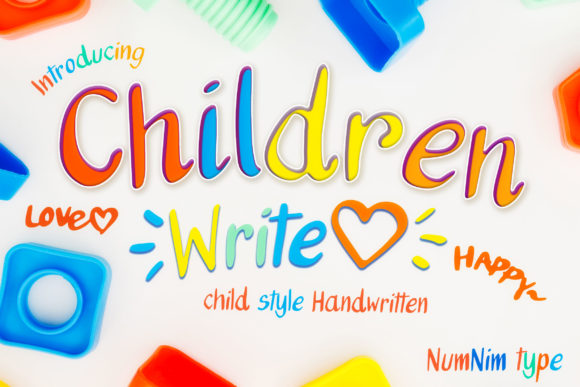
Behold, Children Write Font, a calligraphic treasure that evokes the innocent wonder of childhood through its fluid lines and enchanting charm. Immerse yourself in the world of hand-lettered beauty, where every letter dances with grace and elegance.
This script font, crafted by the talented numnim, captures the essence of handwritten notes exchanged between dear friends, the joy of reading bedtime stories, and the unbridled imagination of children at play. Its delicate strokes and playful flourishes are reminiscent of days spent in sunlit meadows, laughter echoing through the air.
Imagine your designs adorned with the whimsical characters of Children Write Font. Create personalized greeting cards that feel like warm embraces, design heartwarming posters that celebrate the love between mother and child, or let your creativity soar with enchanting social media graphics that capture the hearts of your audience. The possibilities are endless, as Children Write Font weaves its magic into every project.
Indulge in the artistic versatility of Children Write Font. Combine it with vibrant hues to create eye-catching logos that radiate joy and positivity. Use it to design labels for handmade products, adding a touch of warmth and individuality to your creations. Whether it's invitations to special events or packaging for unique gifts, Children Write Font will elevate your designs to new heights.
Embrace the charm of Children Write Font today and let your imagination run wild. Its playful nature is sure to captivate your audience, leaving a lasting impression that says, "This is more than just a design; it's a work of art."